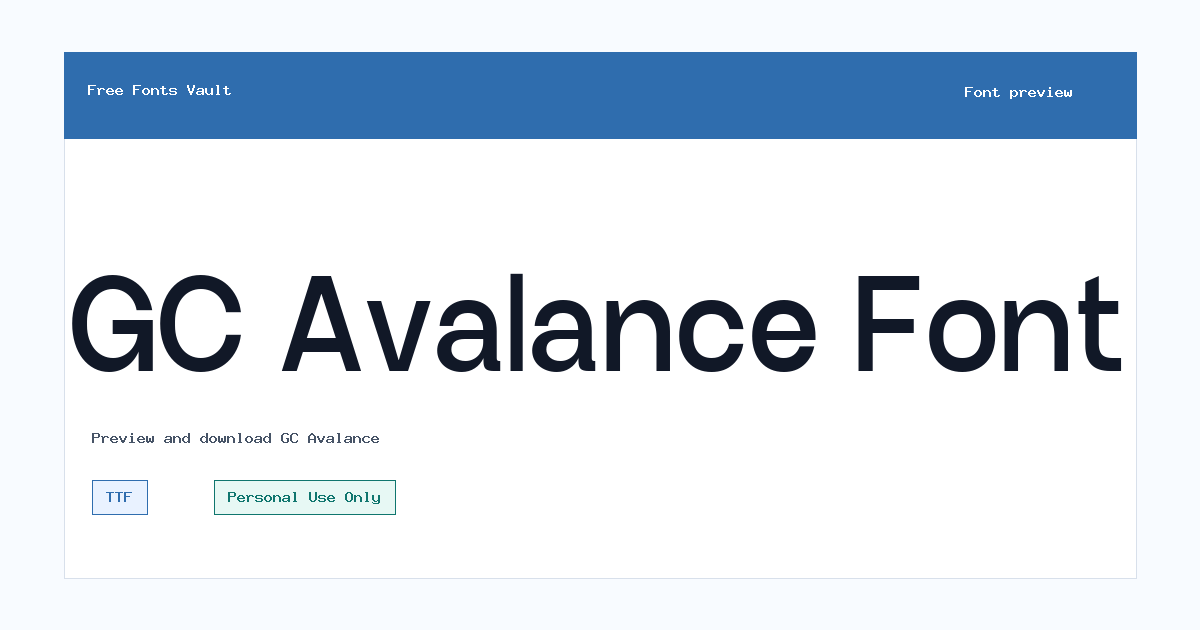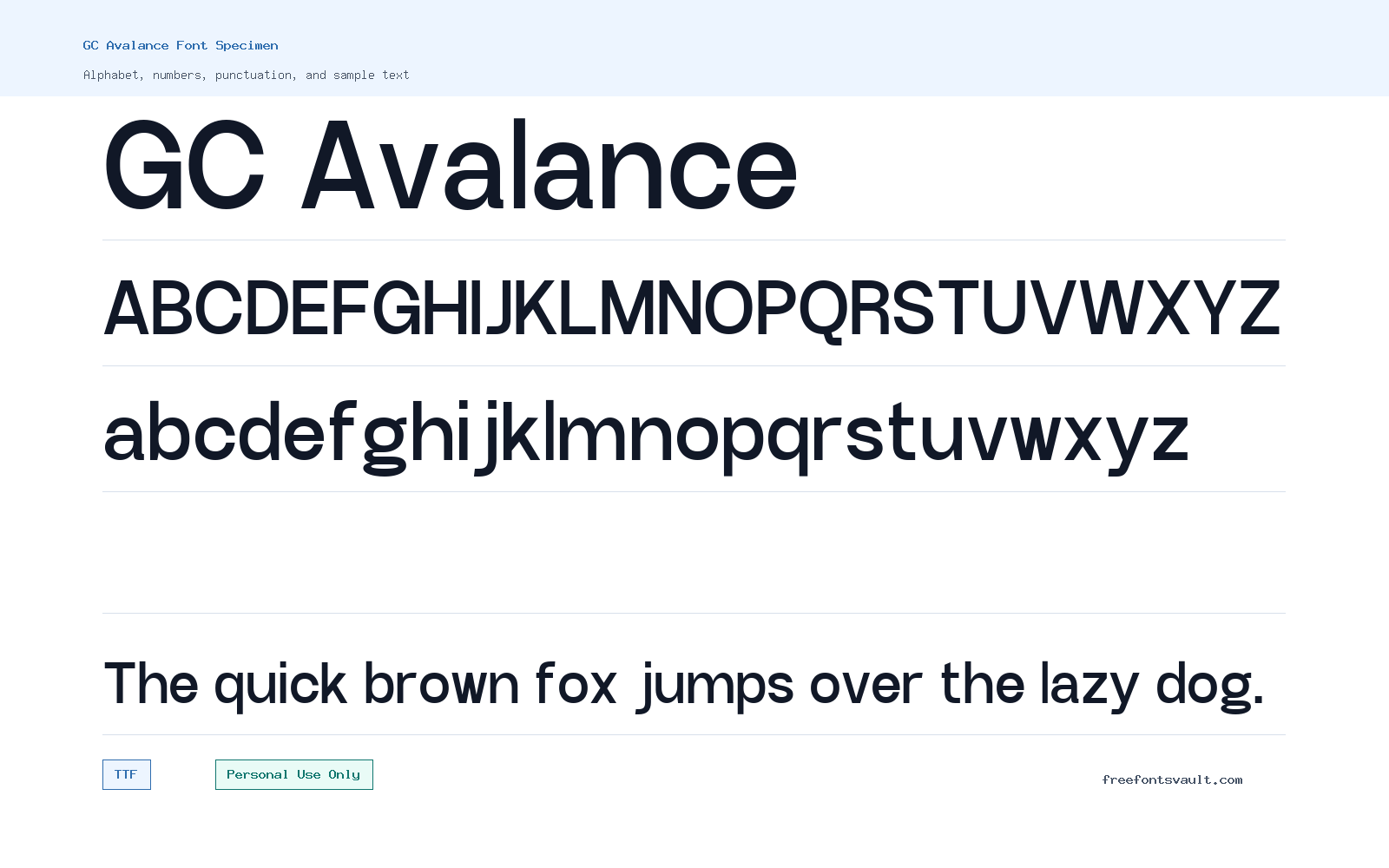
GC Avalance
- Designer Ken Priska Dewirani of Glyphonic
GC Avalance is a sans serif demo font family with multiple weights, making it useful for testing clean display layouts, headings, short labels, and brand-style mockups before choosing a final type direction.
GC Avalance gives you a straightforward sans serif structure with a practical weight range, from Thin and ExtraLight through Regular, Medium, SemiBold, Bold, and ExtraBold. That range makes it easier to compare how the same wording feels when it is light and minimal versus heavier and more direct. Use the preview box to test real words rather than only alphabet samples. Short titles, navigation labels, button text, poster lines, and social graphics can all show different spacing and weight behavior, so checking your own phrase is the safest way to judge the font.
- Useful for comparing light, regular, and heavy headline treatments inside the same family.
- Headlines, short display text, posters, web mockups, logo drafts, labels, and social media graphics where a clean sans serif look is needed.
GC Avalance is credited to Ken Priska Dewirani of Glyphonic.
Is GC Avalance good for body text?
Test it before using it for long paragraphs. It may work best for headings and short text, while body copy needs careful checks for size, spacing, and readability.
Who designed GC Avalance?
The font is credited to Ken Priska Dewirani of Glyphonic.